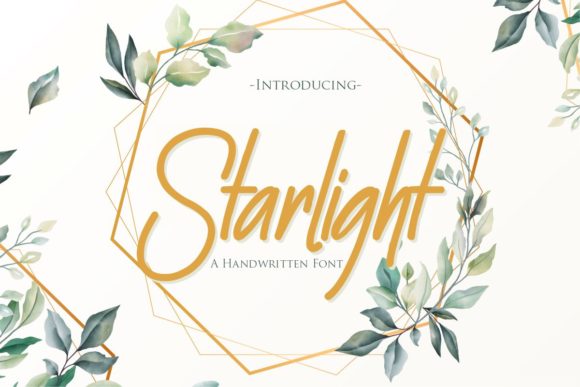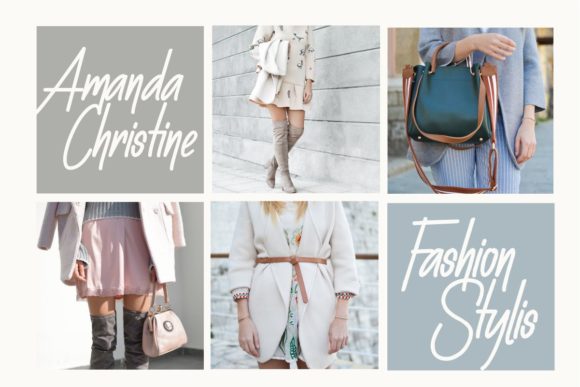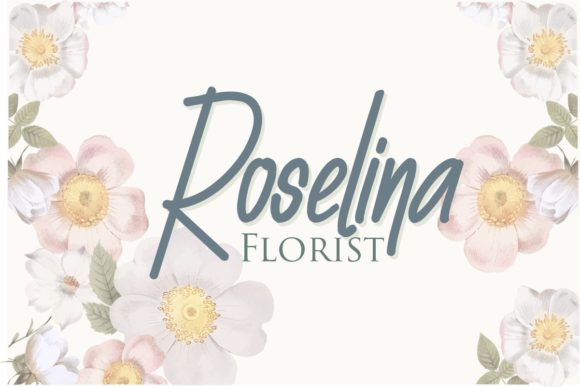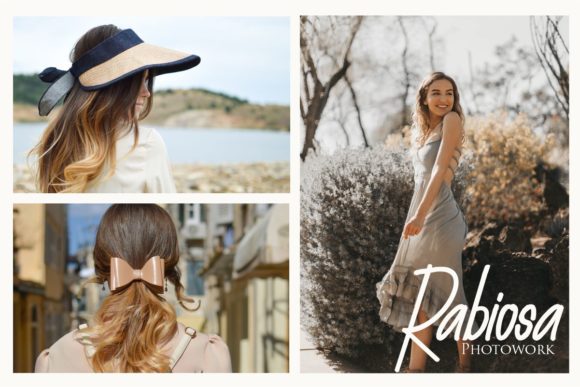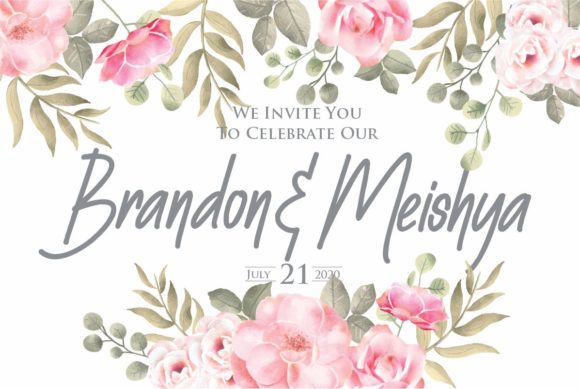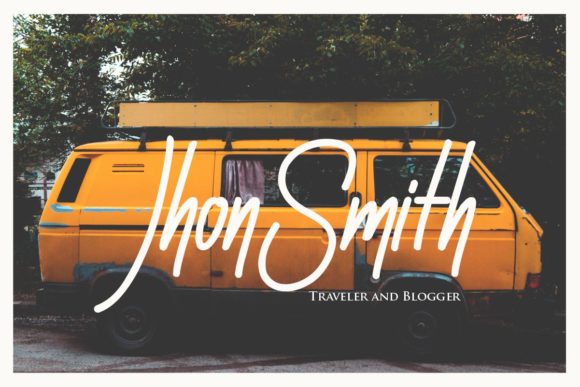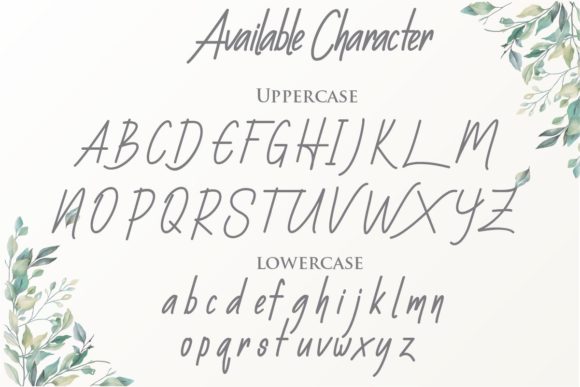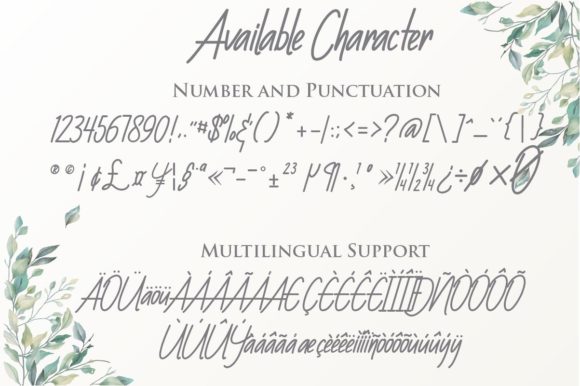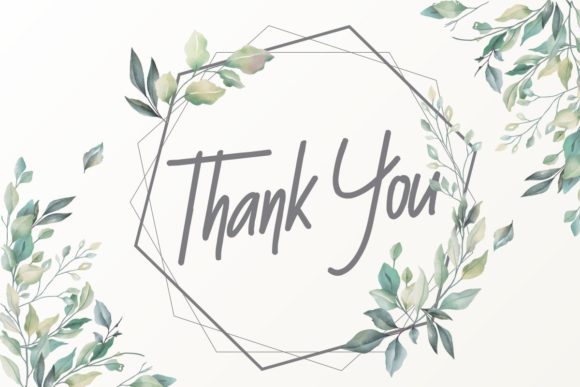
HomeScript FontsStarlight Font Script Fonts Starlight Font FacebookXPinterestWhatsApp Starlight Font Poster 2 Starlight Font Poster 3 Starlight Font Poster 4 Starlight Font Poster 5 Starlight Font Poster 6 Starlight Font Poster 7 Starlight Font Poster 8 Starlight Font Poster 9 About Starlight Font Starlight is a strong and unique script that will turn any design project into a true piece of art! DOWNLOAD ON CREATIVE FABRICAThis font is sold and delivered by Creative Fabrica. Font Canyon may earn a commission if you buy through this link. People also explored Ninja Warrior Font Day Drinking Thorletto Font Andrea Font Alafeda Font Roll Cake Font Chelsy Font Santashoes Font Geostationary 315 0 TagsStarlight Font Previous articleColbiac FontNext articleAdeline Font LEAVE A REPLY Cancel reply Comment: Please enter your comment! Name:* Please enter your name here Email:* You have entered an incorrect email address! Please enter your email address here Website: Save my name, email, and website in this browser for the next time I comment. Personal Use Free Winner Personal Use Free Read more about this font Die Nasty Personal Use Free Read more about this font Allea Sweet Personal Use Free Read more about this font Mika Personal Use Free Read more about this font BLOG Best Fonts for YouTube Videos: Make Your Thumbnails Stand Out Best Fonts for YouTube Videos: Make Your Thumbnails Stand Out Choosing the right font can make a massive difference in how your YouTube videos perform.... Modern Sans-Serif Fonts That Brands Love in 2025 5 Fonts That Will Dominate Design Trends in 2026 Fonts That Capture the Spirit of New York City